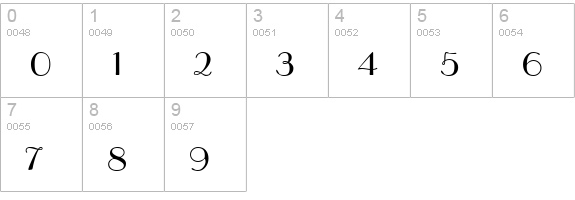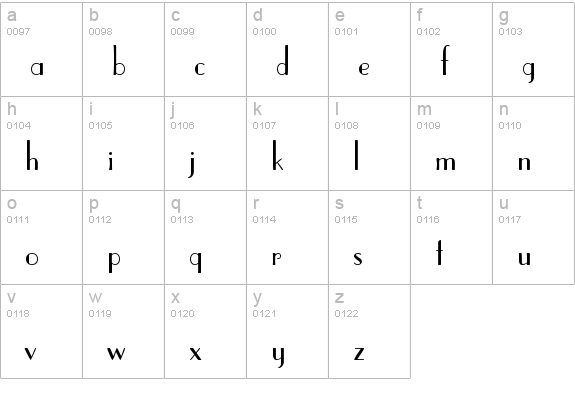
P650-Deco-Regular Font Details
P650-Deco-Regular is the standard, neutral variant in the P650 typeface family \xE2\x80\x94 well suited to general body text, paragraphs, and standard typographic work.
The P650-Deco-Regular font exudes a timeless elegance with its classic yet modern design. This versatile typeface is perfect for a wide range of projects, from branding to editorial design. Its clean lines and distinctive style make it a standout choice for both digital and print applications. What sets P650-Deco-Regular apart is not just its striking aesthetics, but also the fact that it is freely available to download at FontsMarket.com. This means you can easily access this high-quality font without any cost, making it a valuable addition to your design toolkit. Whether you're working on a personal project or a professional commission, P650-Deco-Regular offers the perfect balance of style and functionality. Elevate your designs with this exceptional font today!